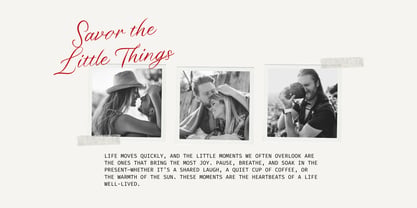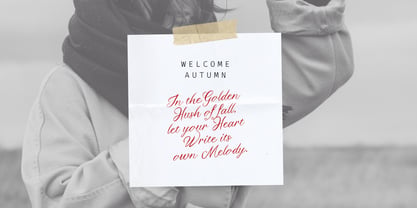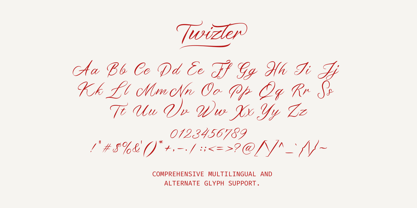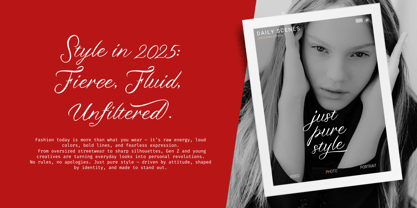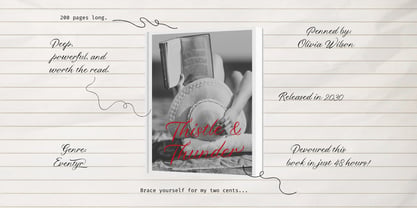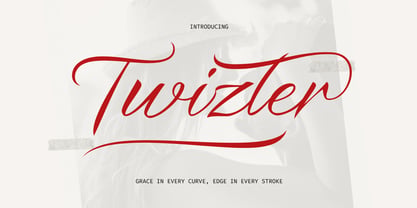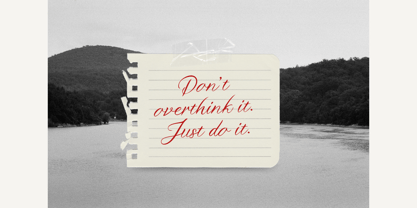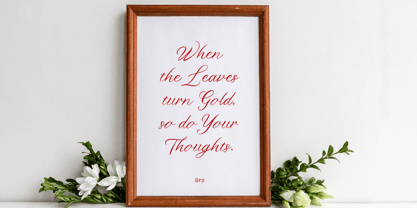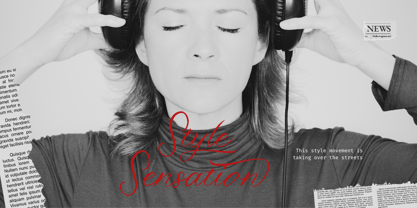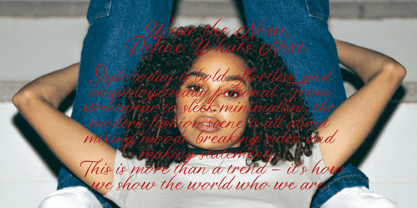
Twizler
by Gatype
The Twizler Font Family was designed by khaidir and published by Gatype. Twizler contains 1 styles. More about this family
Introducing Twizler, a modern script font that blends elegance with a subtle edge. Handcrafted to mimic the charm of flowing calligraphy, Twizler features graceful curves and sharp, tapered endings that bring a touch of drama to every word.
Perfect for wedding suites, feminine branding, logos, and editorial designs, Twizler adds sophistication with a spark of bold personality. Its sweeping lines and pointed terminals make your message feel both delicate and striking — a balance of beauty and attitude.
Full uppercase & lowercase characters
Numbers and punctuation
Lush ligatures and hundreds of stylistic alternates
Multilingual support (Latin-based languages)
Let your words glide, twist, and end in style.